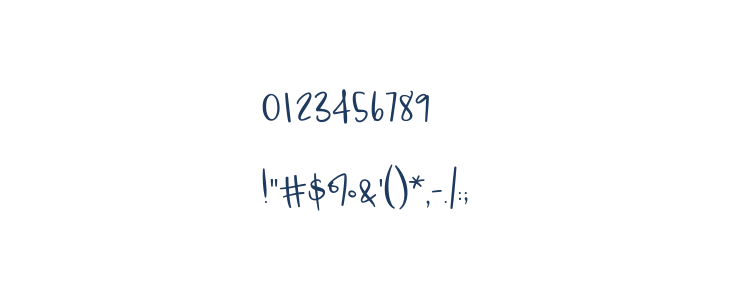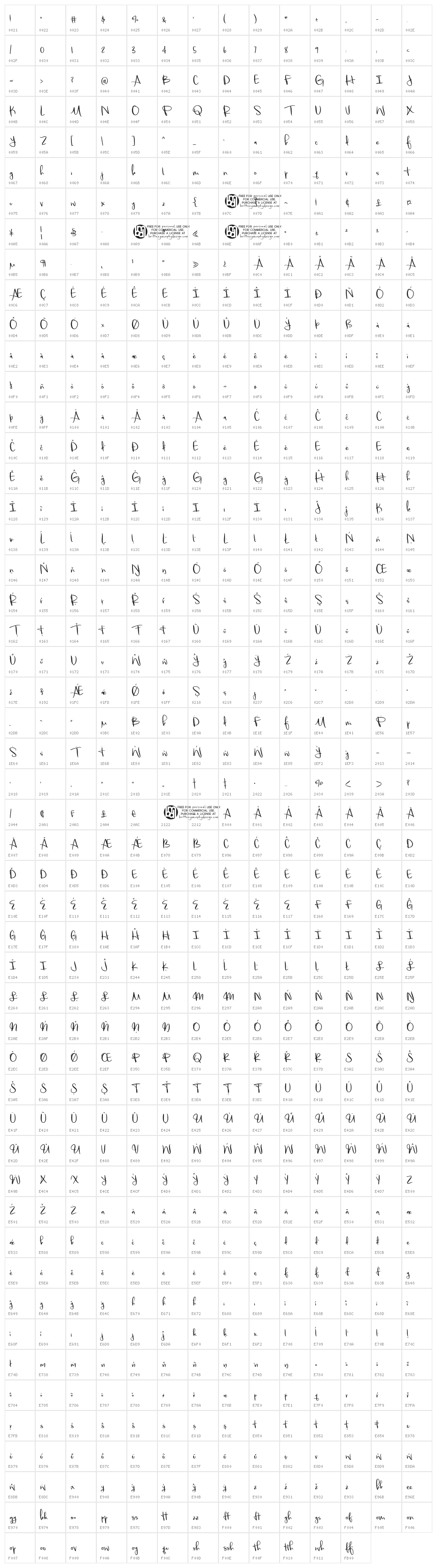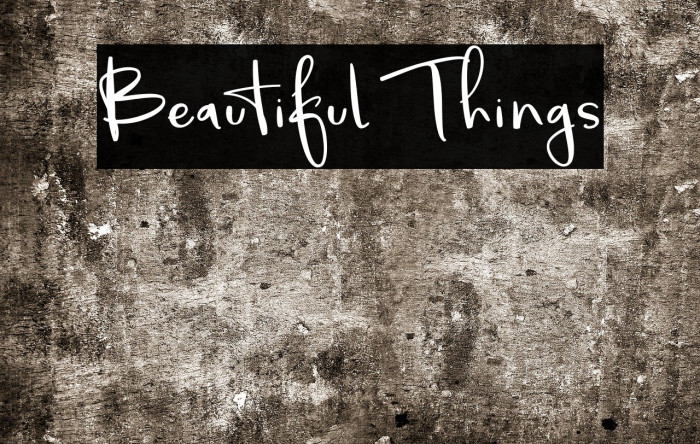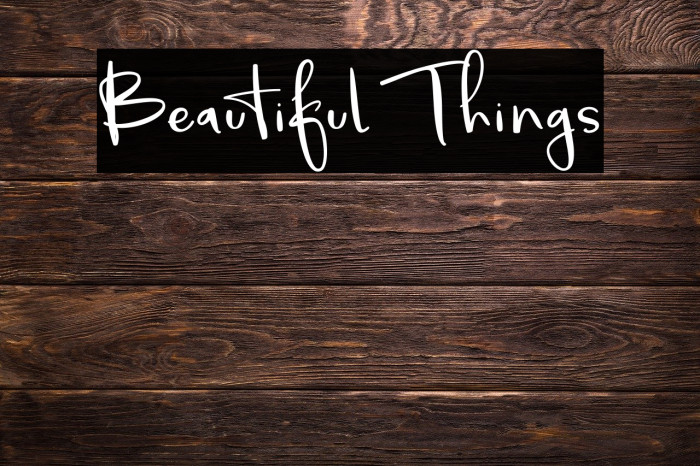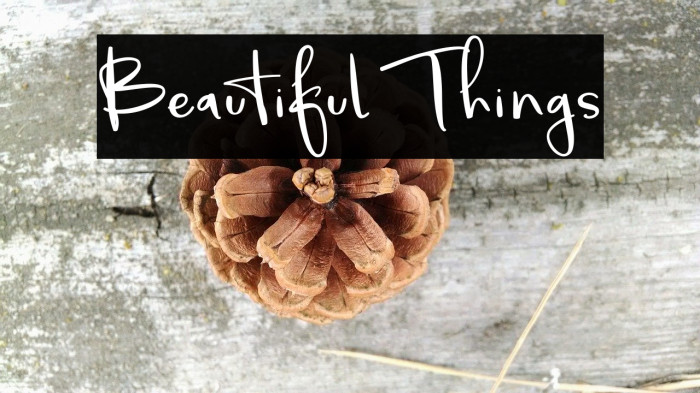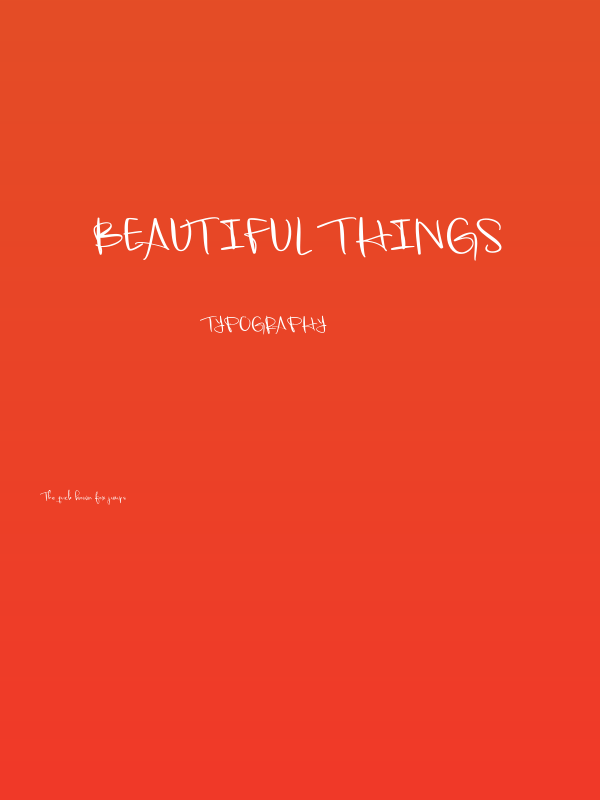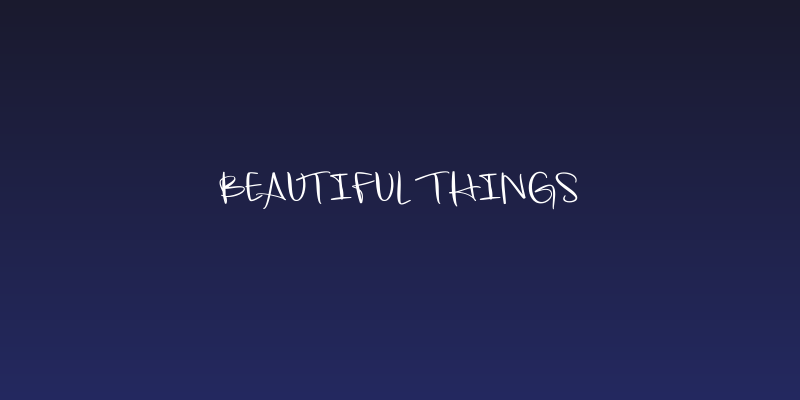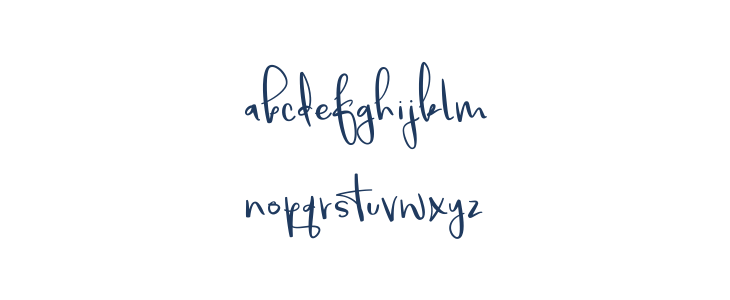
Beautiful Things Font
Beautiful Things Description
This font exudes a playful and artistic vibe, characterized by its handwritten style that mimics the fluidity and spontaneity of natural handwriting. The letters are slightly irregular, adding a personal touch and charm. The uppercase letters are bold and expressive, while the lowercase letters maintain a consistent flow, enhancing readability. The numbers and special characters are crafted with the same whimsical flair, making them suitable for creative projects. The overall appearance is casual yet stylish, perfect for adding a touch of personality to any design.
| Use Case | Logos, Headlines, Creative projects |
| Proposed Projects | Ideal for greeting cards, invitations, personal branding, and creative social media graphics. |